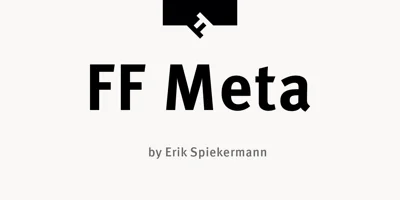
FF Meta Font
FF Meta Font is perfect for corporate identity systems, professional wayfinding signage, transit authority branding, government communications, institutional publications, public service announcements, and comprehensive brand guidelines that require versatile, humanistic typography with exceptional legibility.
This font is exciting because it revolutionized contemporary sans-serif design by combining Germanic precision with humanistic warmth, featuring carefully balanced letterforms that convey both authority and approachability while maintaining outstanding performance across all media formats.
The FF Meta Font family includes normal, medium, and bold weights with condensed variants, offering uppercase and lowercase letters, comprehensive numerals, extensive punctuation marks, multilingual support, and specialized characters designed for professional communication systems.
Corporate design professionals consistently choose FF Meta Font for projects requiring comprehensive brand system reliability and international communication excellence. This legendary typeface transforms complex organizational communications into compelling statements of institutional clarity that immediately serve diverse audiences across multiple languages and cultural contexts. The font's systematic character makes it exceptionally effective for transportation systems, government agencies, and multinational corporations where information hierarchy and cross-cultural readability must be optimized for maximum public service impact. Its humanistic foundation bridges technical functionality with emotional accessibility, making it invaluable for organizations communicating with broad public audiences and international stakeholders. The meticulously engineered letterforms maintain their clarity across subway signage and corporate annual reports, ensuring consistent brand recognition and institutional authority. Whether you're developing transit system identities, creating government publication standards, or designing multinational corporate guidelines, this typeface provides the systematic reliability and human warmth that distinguishes world-class institutional design from generic corporate typography, establishing immediate trust among diverse audiences who expect clear communication and appreciate the thoughtful balance between functional efficiency and human-centered design in their daily interactions with public and corporate institutions.